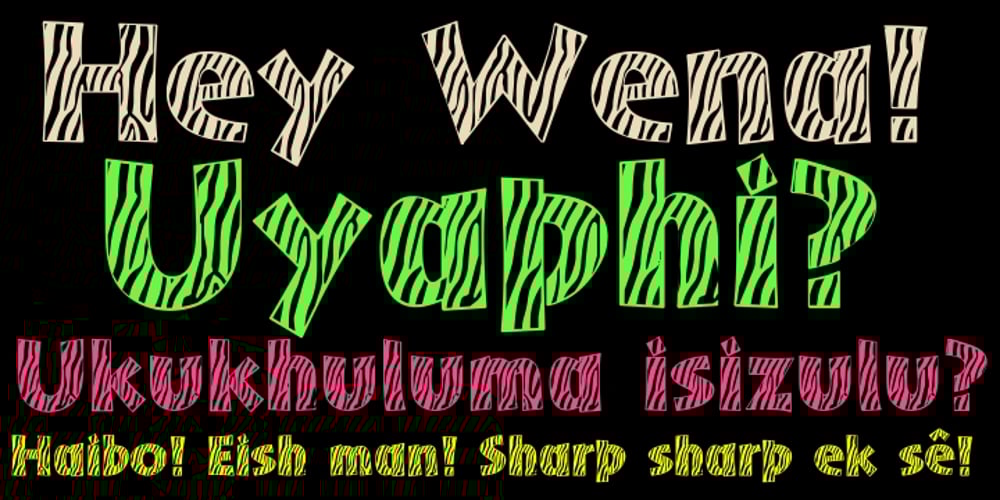
ZebraSkin
ZebraSkin font
ZebraSkin Font Family was designed by Anton Scholtz, Merle Scholtz and published by Scholtz Fonts. ZebraSkin contains 1 styles and family package options. ZebraSkin is an exciting, contemporary display font, incorporating the distinctive markings of one of Africa’s most striking animals. One style is available: ZebraSkin Aarde, based on the Aarde Black font. It is best used in conjunction with Aarde Black or Aarde Outline. The popularity of the “animal skin” look in contmporary clothing and soft furnishing design make ZebraSkin a must for artists on the creative edge of contemporary design.